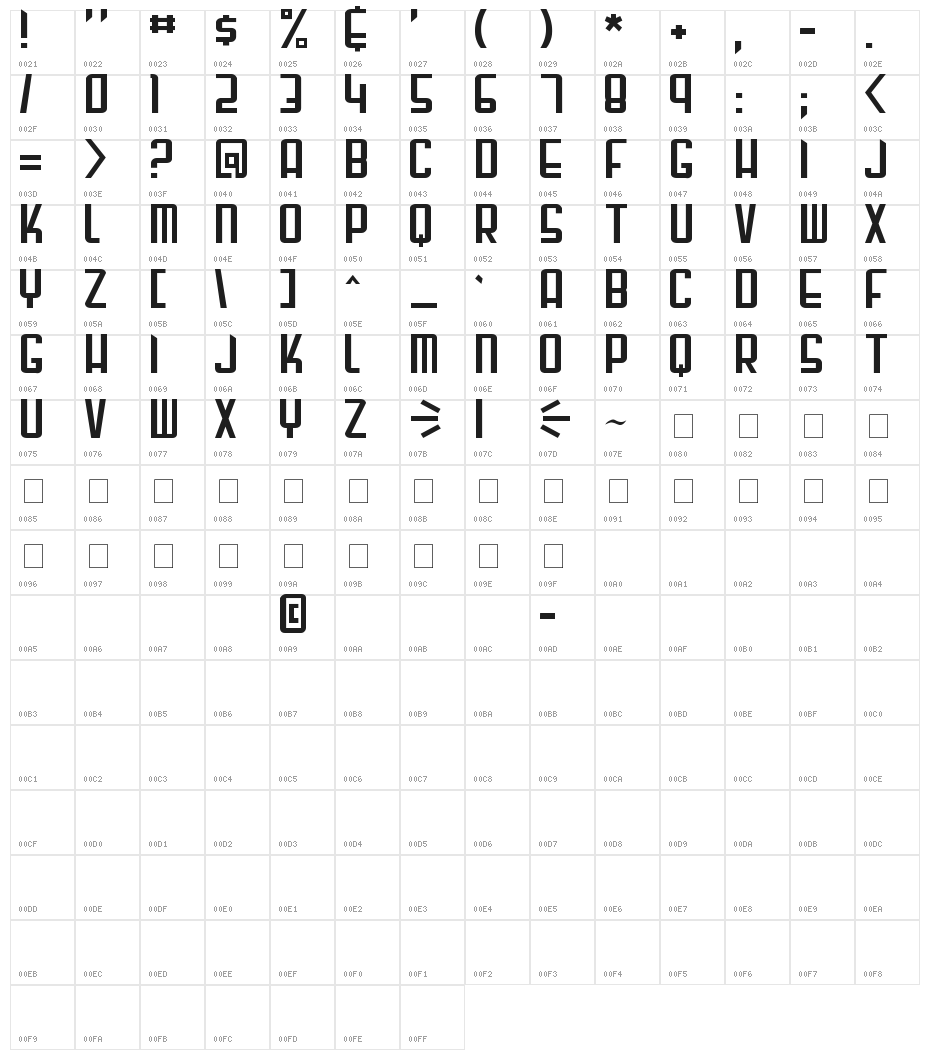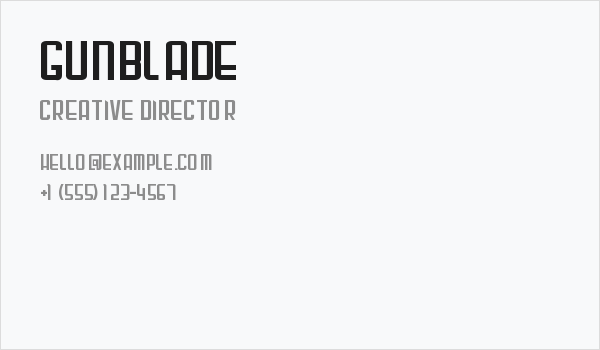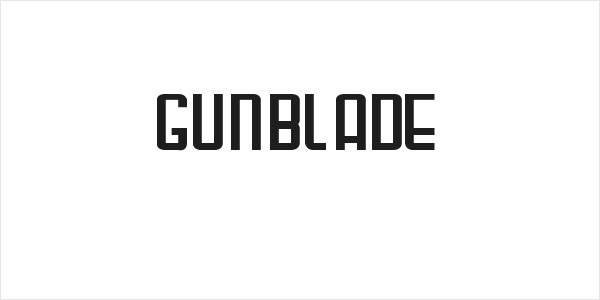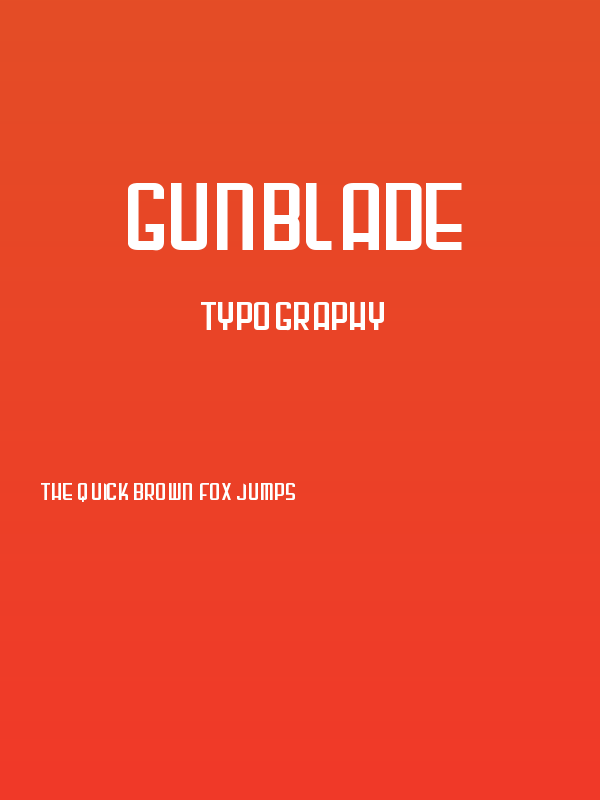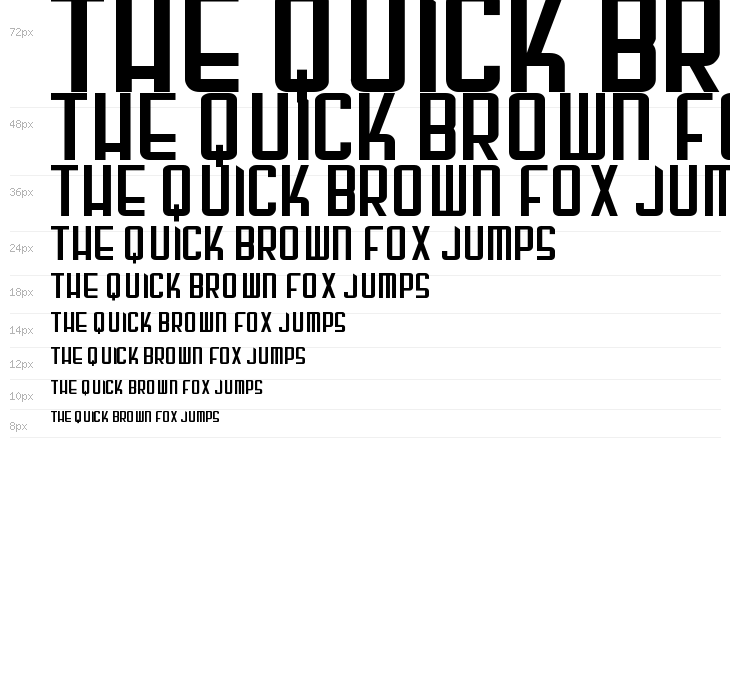
Gunblade Font
Gunblade Description
This font features a bold and geometric design, characterized by its strong, angular lines and uniform stroke width. The uppercase and lowercase letters maintain a consistent height, creating a cohesive and structured appearance. The numerals and special characters are designed with the same geometric precision, ensuring a seamless integration with the alphabet. The font's style is modern and industrial, making it suitable for projects that require a strong visual impact. Its clear and legible design is ideal for both digital and print media, providing versatility across various applications.
GUNBLADE UPPERCASE
GUNBLADE LOWERCASE
GUNBLADE OTHER CHARS
| Proposed Projects | Ideal for branding, posters, headlines, and digital interfaces requiring a strong visual impact. |